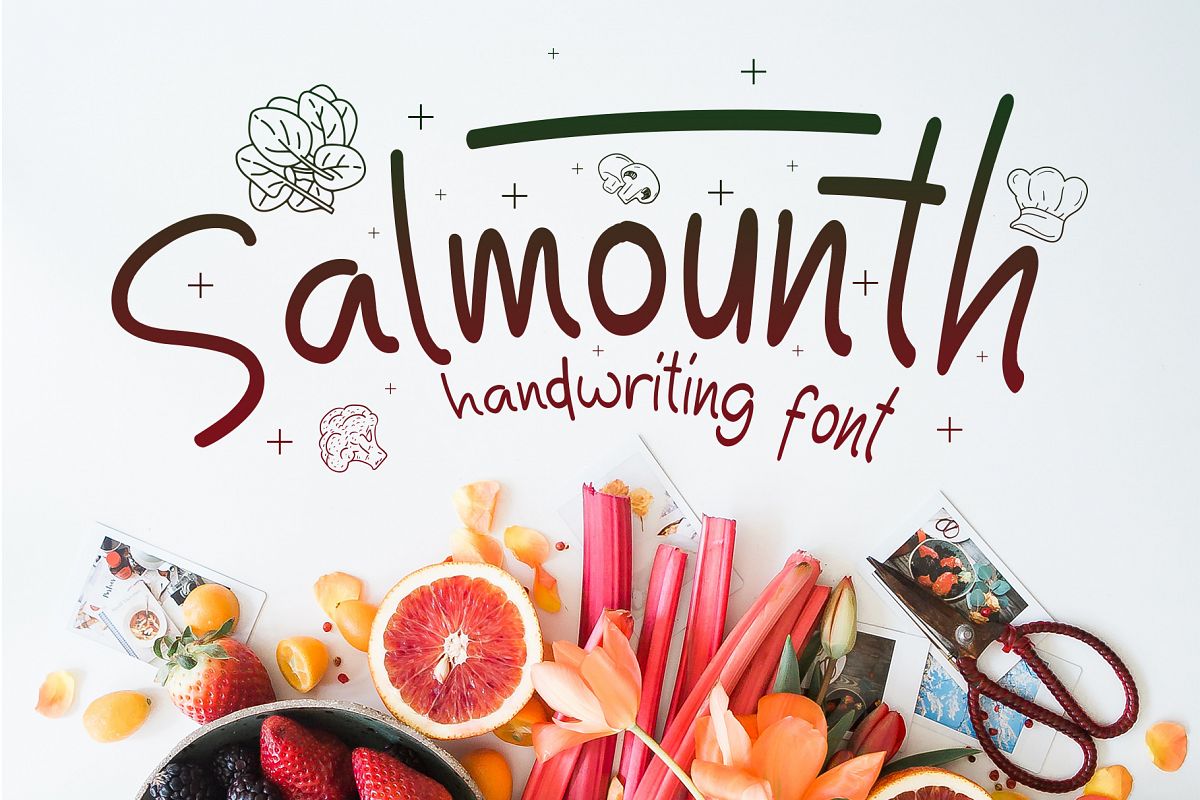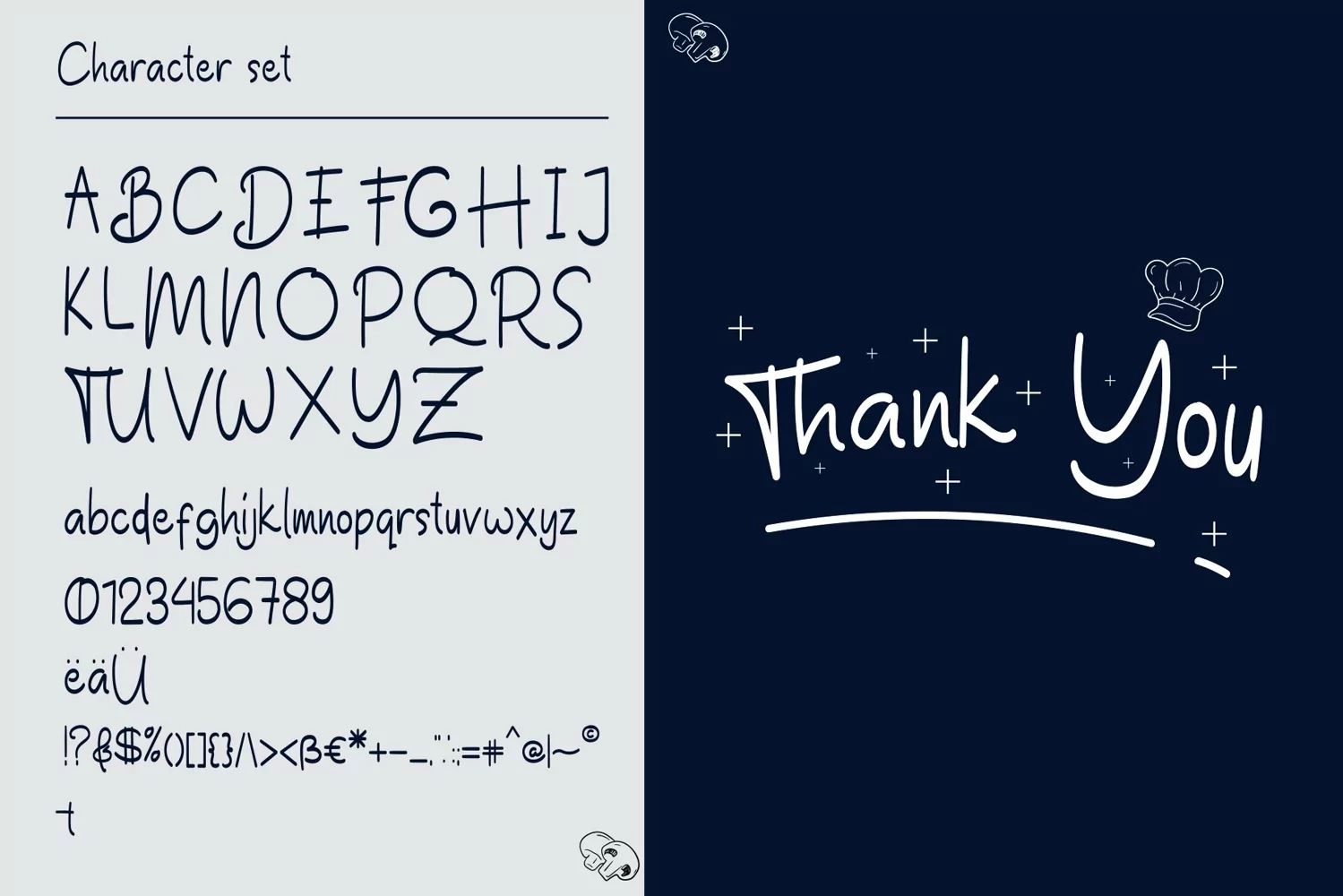
-- Original / Playful / Decorative -- Salmounth font is a sans font family Inspired by kids book cover design, we try to make it more decorative so it's can useful for any purpose. it's perfect for you to show your design or product in professional way. USE Salmounth font is works great in any branding, logos, magazines, films, poster, flyer, sign board, magazine,etc INSIDE THE ZIPP TTF file OTF file Thanks for having a peek at Salmounth font. After all I'm very proud to finally release it, I hope you enjoy it and feel free to take it for a spin below! As always, if you have any questions just send me a message, or contact me directly. Cheers!